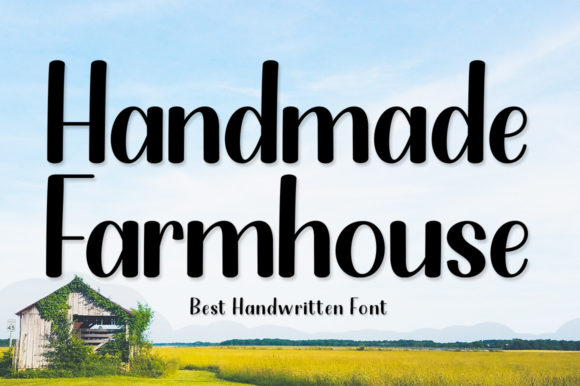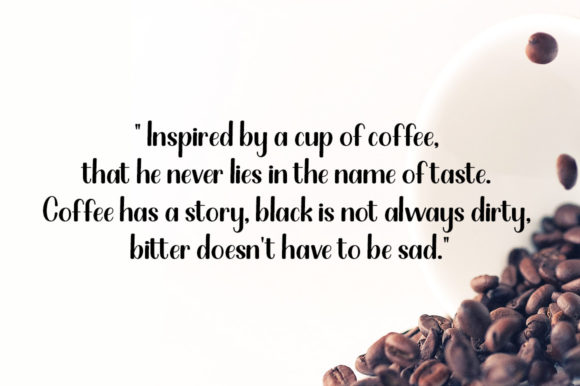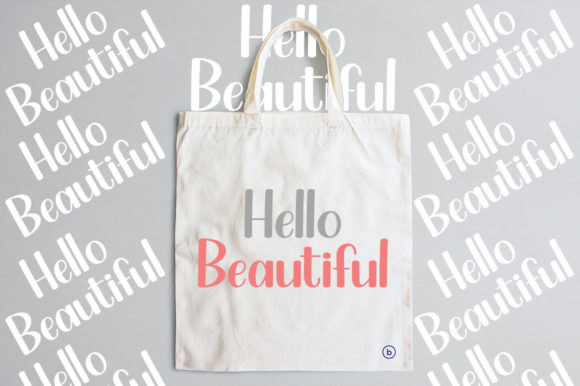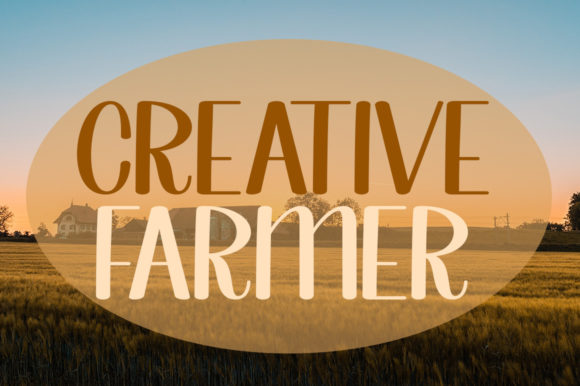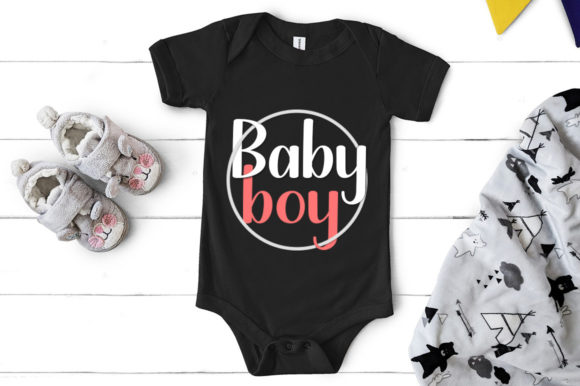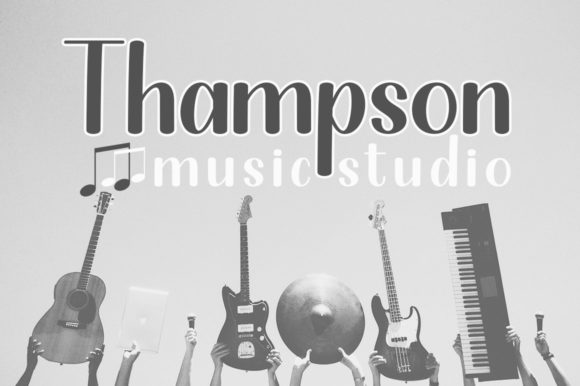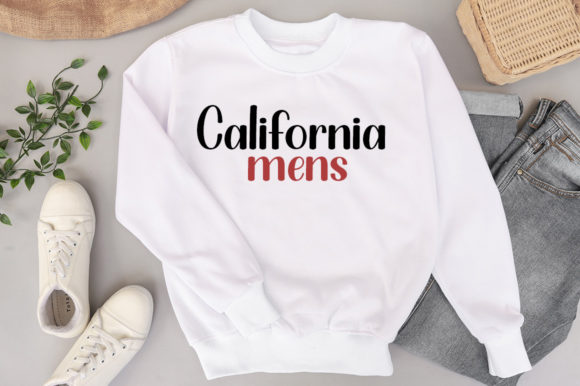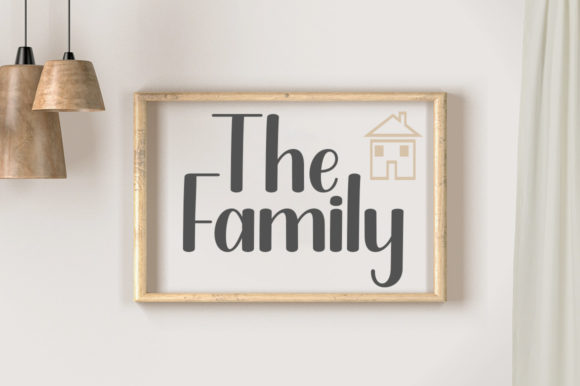
Handmade Farmhouse Font
About Handmade Farmhouse Font
Handmade Farmhouse is a warm and cozy handwritten font, thoughtfully crafted to become a cherished favorite. This font brings a sense of handmade charm and coziness to various design projects, making it a versatile choice for logos, invitations, headings, t-shirts, letterhead, signage, labels, news, posters, badges, and much more.
The font’s handcrafted appearance adds a personal and authentic touch to your designs, making it suitable for a wide range of applications. Its warmth and coziness contribute to a friendly and approachable aesthetic, creating a welcoming atmosphere in your projects.
In logos and branding, Handmade Farmhouse infuses a sense of authenticity and artisanal quality. Its handwritten style communicates a personalized and unique identity, making it ideal for businesses or projects that want to convey a handmade or crafted feel.
For invitations and headings, the font’s warm and cozy nature enhances the overall mood of the design. Whether used for event invitations or creative headings, Handmade Farmhouse adds a touch of character and charm.
On t-shirts and posters, the handwritten quality of Handmade Farmhouse brings a casual and friendly vibe. It’s suitable for creating designs that feel comfortable and relatable, making it appealing for a diverse range of audiences.
The font’s versatility extends to various applications such as letterhead, signage, labels, news, and badges, where its warm and handmade characteristics enhance the visual appeal of the content.
In summary, Handmade Farmhouse is more than just a font; it’s a creative tool that adds warmth, coziness, and a handmade touch to your design projects. Whether applied to logos, invitations, headings, t-shirts, or other diverse applications, Handmade Farmhouse is a delightful choice for creating designs with a personal and inviting feel.